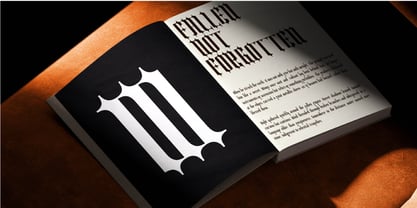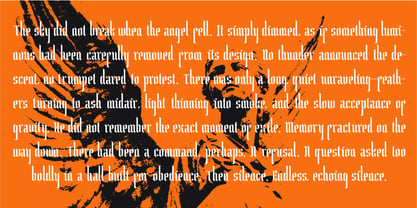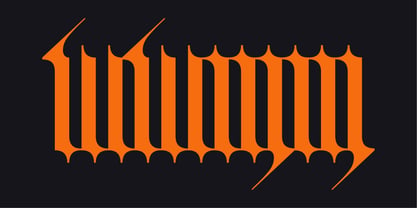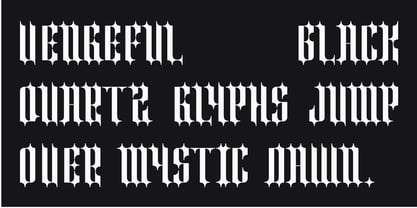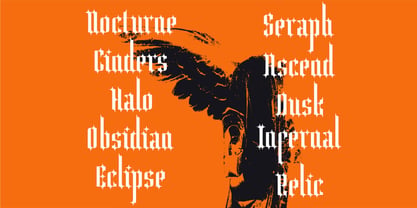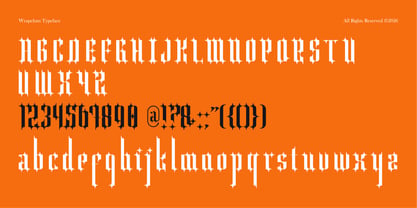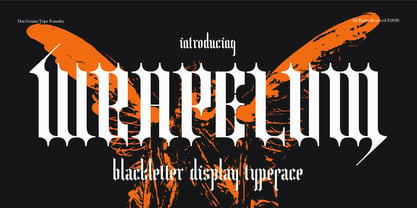
DG Wrapelum
by DG Typeworks Studio
The DG Wrapelum Font Family was designed by Asrul Yusuf and published by DG Typeworks Studio. DG Wrapelum contains 1 styles. More about this family
WRAPELUM is a bold blackletter display typeface that seamlessly merges classical Gothic influences with a sharp, modern structural approach. Designed for high-impact typography, it delivers a dramatic presence, ornamental rhythm, and strong vertical authority. This typeface features angular terminals, dense letterforms, and controlled contrast, creating a powerful and expressive visual identity. While rooted in traditional blackletter aesthetics, WRAPELUM is refined for contemporary design applications, balancing historical character with modern clarity. It is ideal for branding, music artwork, posters, editorial headlines, apparel graphics, and dark-themed visual identities. WRAPELUM commands attention in large-scale compositions and statement typography. Its distinct silhouette and structured rhythm make it particularly effective in layouts that require intensity, elegance, and a sense of mythic atmosphere.